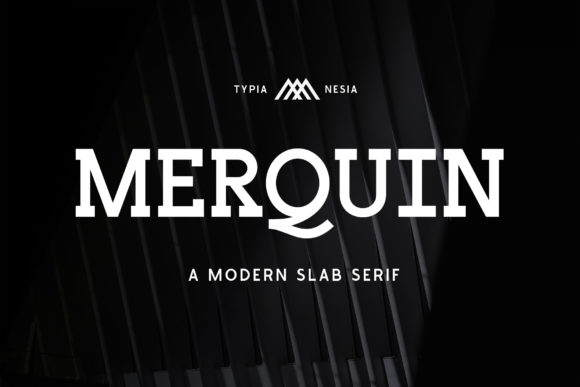
Welcome to the realm of Merquin Font, a vintage and bold slab serif font, meticulously designed by the visionary geniuses at Typia Nesia. Merquin Font goes beyond ordinary typefaces, embodying strength, confidence, and dynamism, promising to infuse your designs with waves of stylish character.
Merquin Font is the ultimate choice for those seeking to make a lasting impression. Its stunning slab serif structure exudes an aura of power, projecting a voice that demands attention. Each stroke and curve of Merquin Font has been crafted to convey a sense of boldness and determination, ensuring your words carry weight and resonate with impact.
Whether you're a seasoned designer or a creative enthusiast, Merquin Font is the perfect tool to elevate your projects. Unleash your imagination and watch as your visions transform into captivating realities. Create unforgettable logos, eye-catching headlines, or striking posters that leave an indelible mark on your audience.
With Merquin Font, you are not merely creating designs; you are crafting experiences. Engage your audience with visuals that ignite emotions and command attention. Its vintage charm adds a touch of nostalgia, evoking a sense of timelessness and authenticity. Whether you're designing for print, digital, or social media, Merquin Font is the versatile chameleon that adapts seamlessly to any medium.
Embark on a journey of creative exploration with Merquin Font, where your ideas take center stage and leave a lasting impact. Its simplicity and elegance empower you to craft designs that speak louder than words, capturing hearts and minds with its timeless allure.
Discover the limitless possibilities of Merquin Font today and elevate your creative projects to new heights. Embrace the power of vintage charm, boldness, and confidence, and unlock a world of design that captivates and inspires.